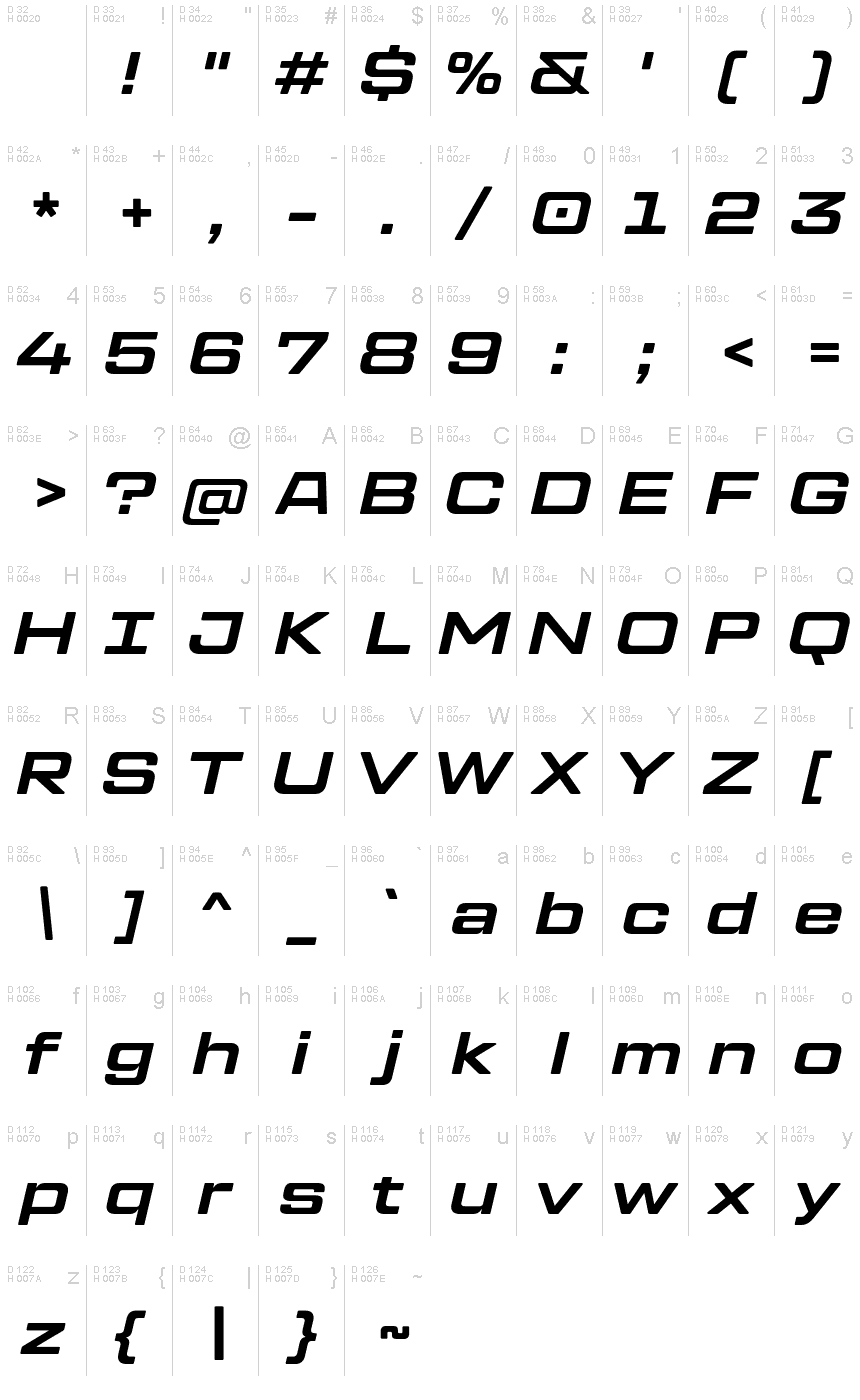
TT Lakes Neue Trl Exp Bd It
TT Lakes Neue Exp Bd It is a bold, modern font designed by the renowned TypeType Foundry. Its extra-expanded width makes it perfect for projects that require a spacious and airy feel, while its semi-bold weight adds just the right amount of emphasis to your text. Use this sans serif typeface for anything from sleek website headers to eye-catching marketing materials. Its versatility also makes it suitable for print designs like magazines and brochures. Whether you need a font that commands attention or one that offers a clean, minimalist look, TT Lakes Neue Exp Bd It has got you covered.